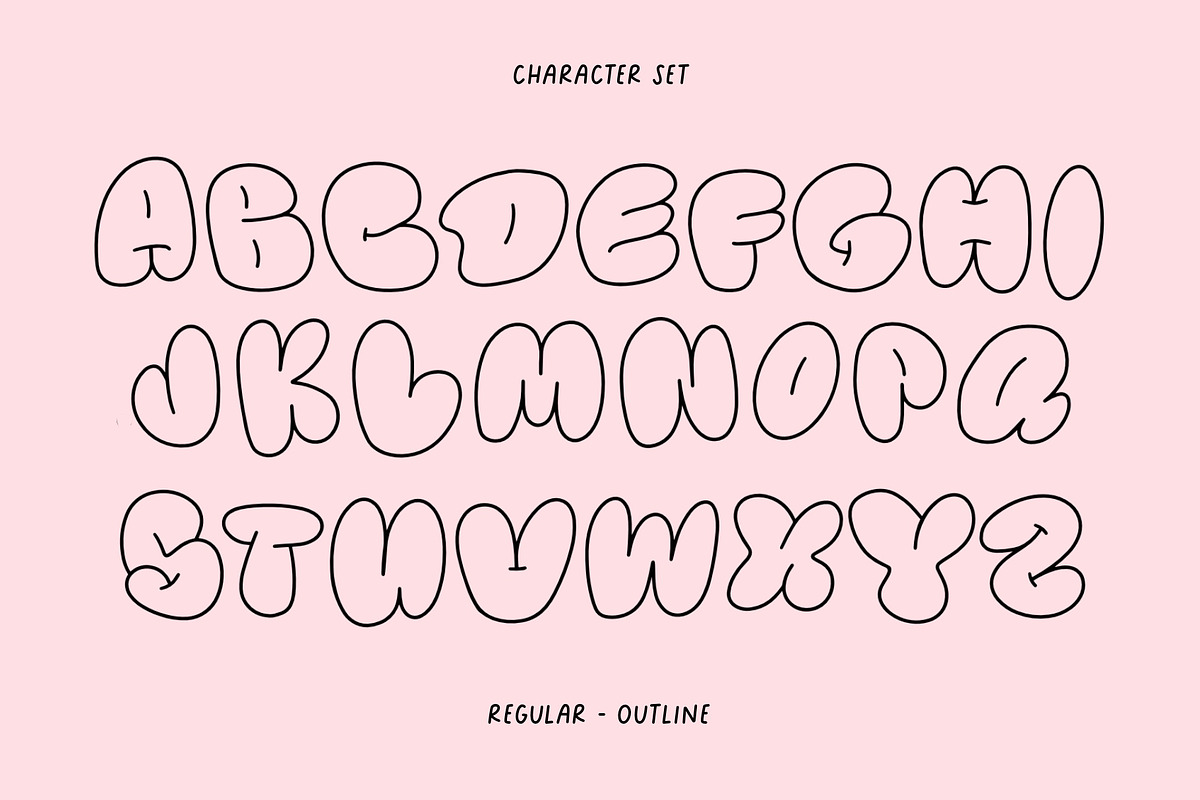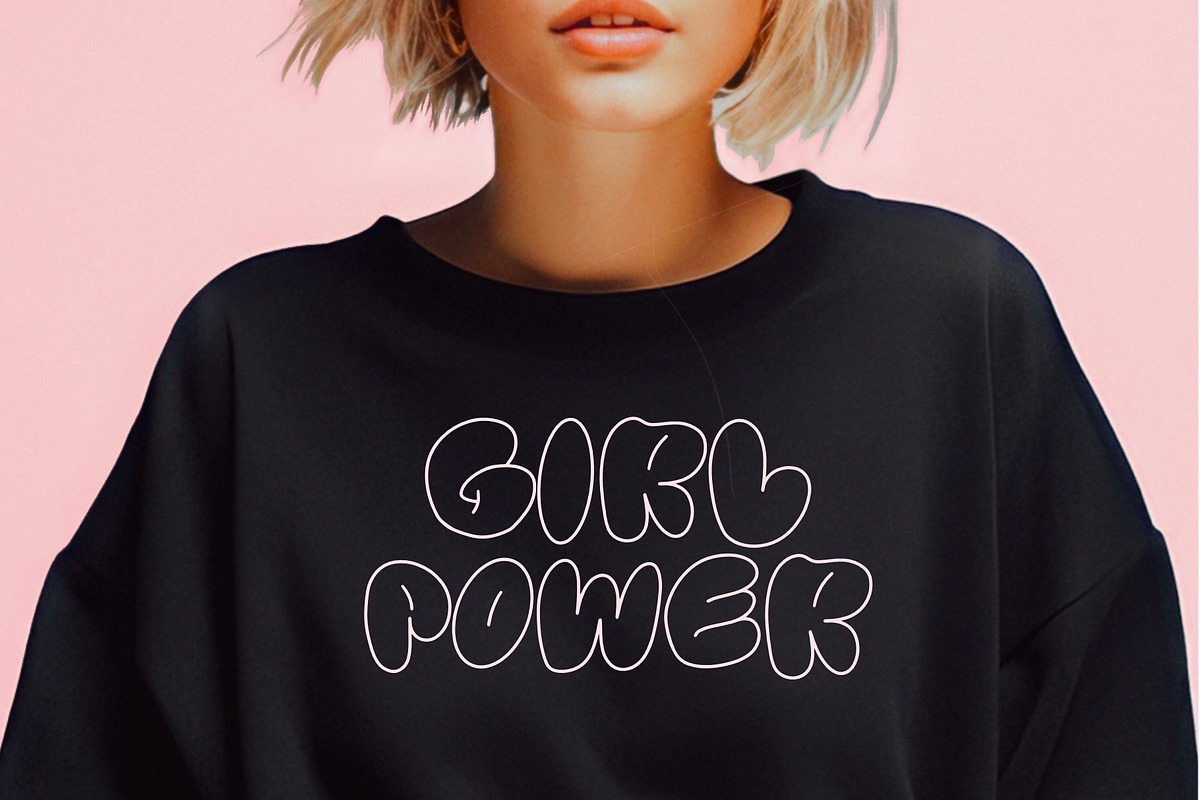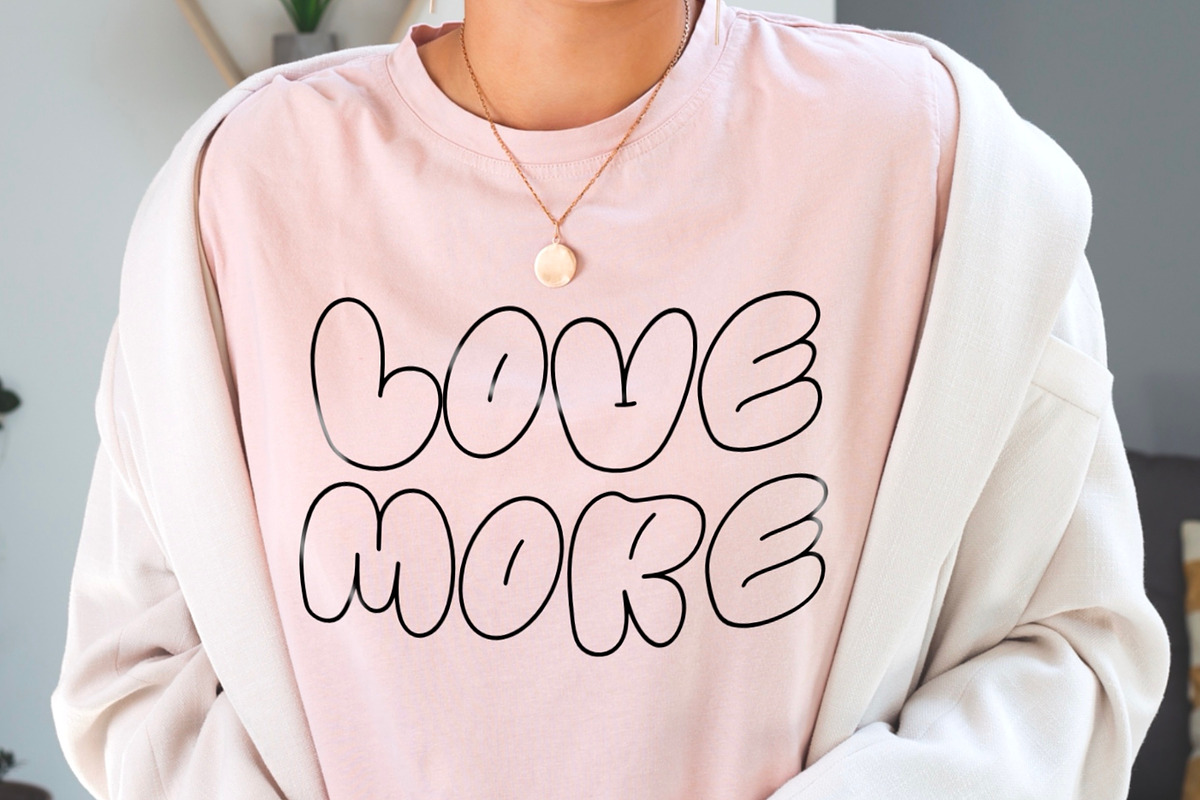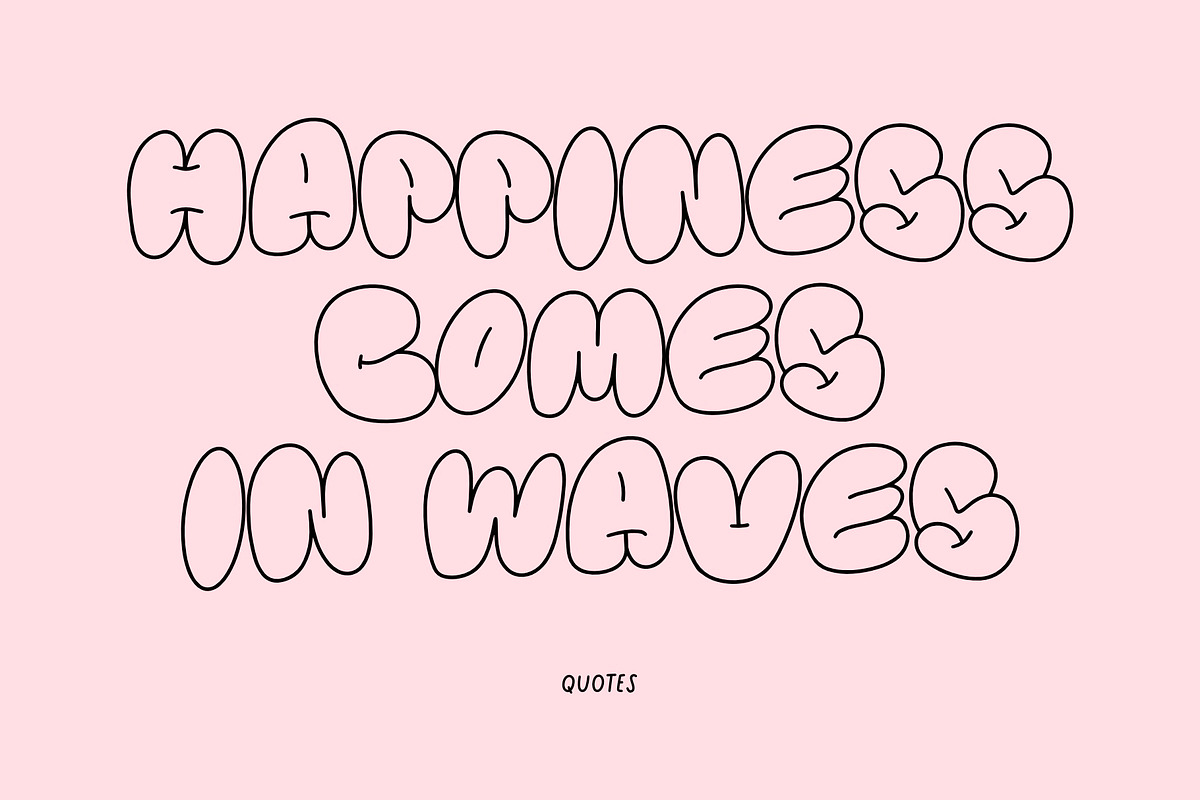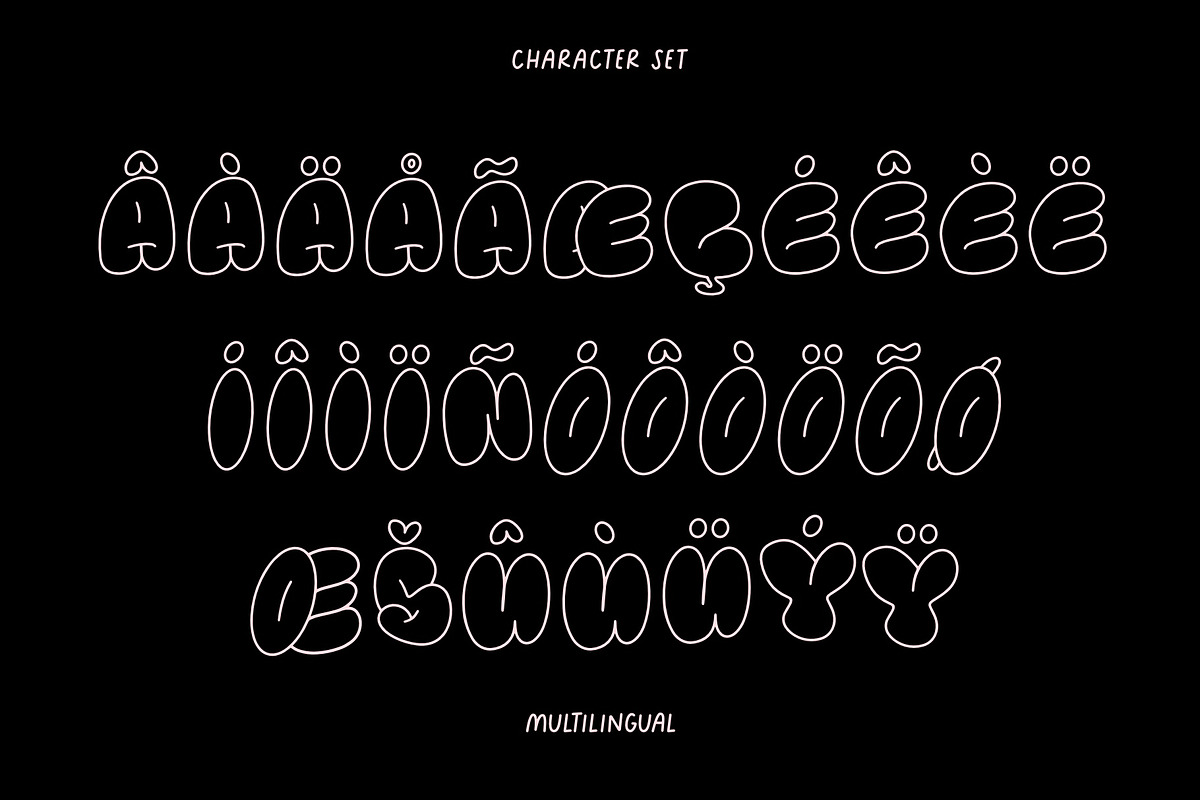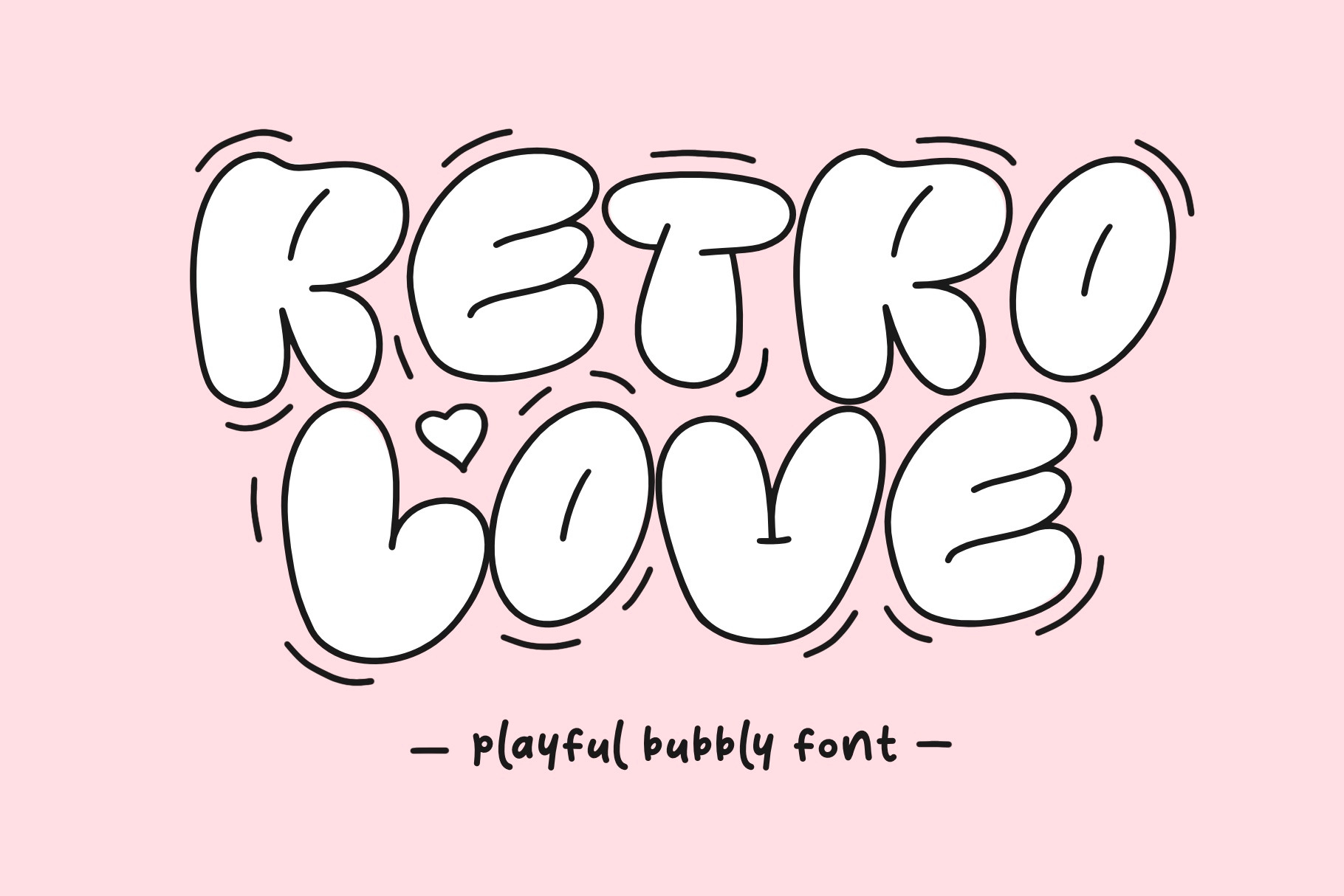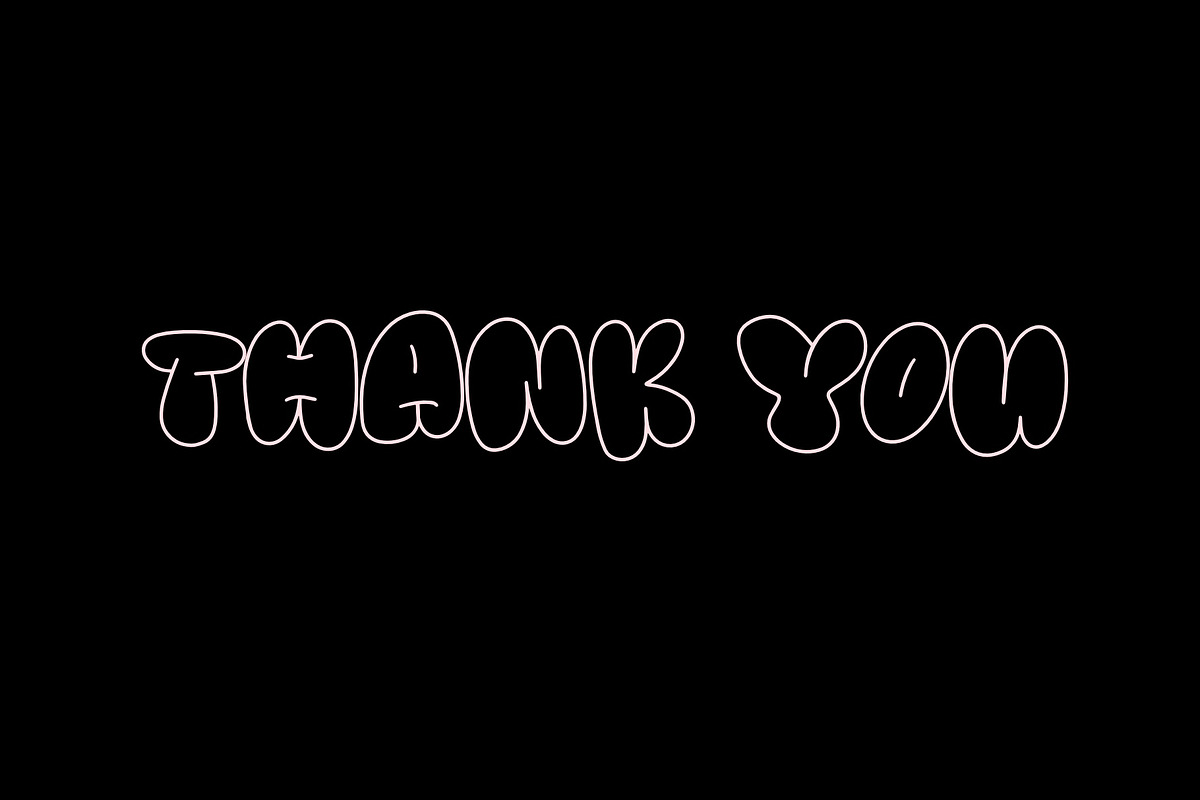
Retro Love Font - Bubble Font
Retro Love is a captivating bubble font that effortlessly merges nostalgic charm with a contemporary twist. This typeface available in SVG format, compatible with advanced tools such as Cricut and Glowforge, and for use in Procreate. This handwriting-style typeface exudes a playful and whimsical vibe, reminiscent of the carefree spirit of the retro era. Each character is intricately crafted with rounded edges, forming bubbly letters that dance across the page with a delightful sense of spontaneity.